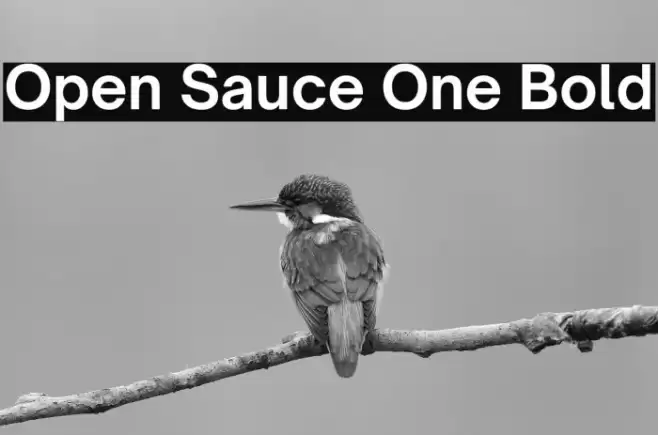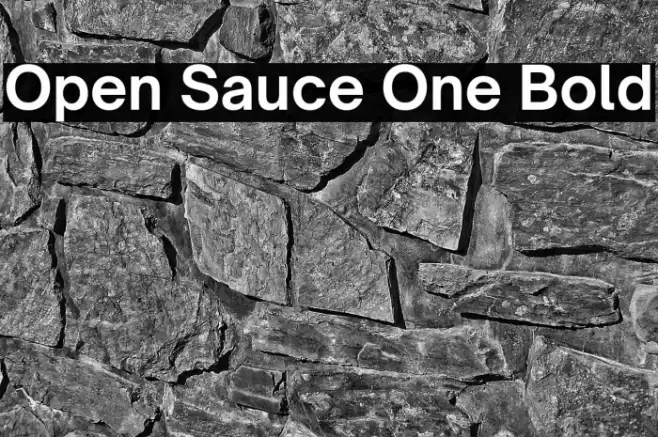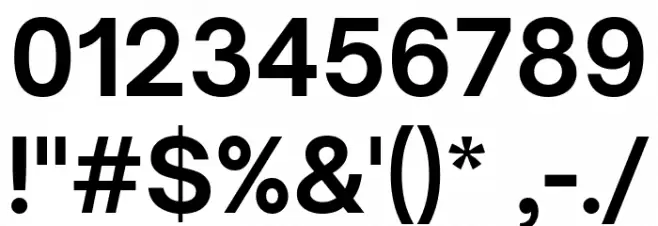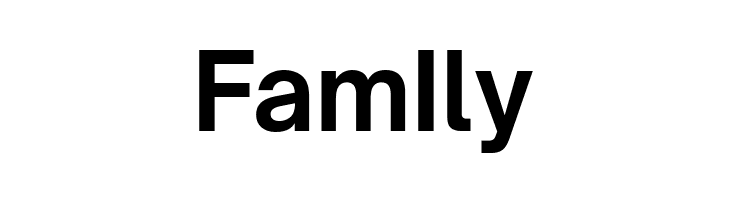
Open Sauce One Bold Font
Open Sauce One Bold Description
This font features a clean and modern sans-serif design with bold, uniform strokes that convey a sense of strength and clarity. The characters are well-proportioned, with a consistent height and width that ensures readability across various sizes. The uppercase letters are slightly taller than the lowercase, providing a balanced visual hierarchy. The numerals are distinct and easy to read, making them suitable for both digital and print applications. Special characters are clearly defined, maintaining the overall aesthetic of the font. The design is versatile, making it suitable for a wide range of projects.
A bold, modern sans-serif font with clean lines and excellent readability from Sans Serif fonts.
- Proposed Projects: Ideal for branding, advertising, web design, and editorial use where clarity and impact are essential.
- Use Case: Headlines, Logos, Digital interfaces